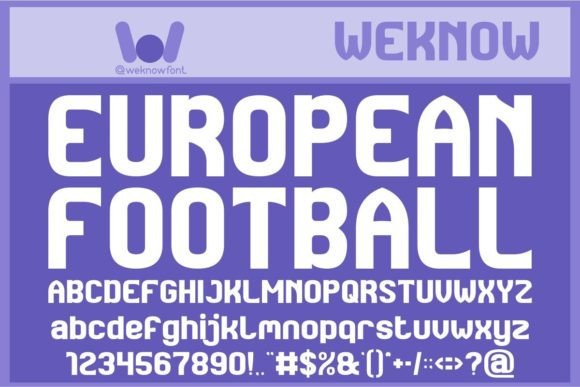
European Football Font: The Ultimate Choice for Bold and Sporty Designs
The world of typography is vast and diverse, offering a multitude of font styles to suit various design needs. Among these, the European Football font stands out for its sleek, sporty aesthetic and bold confidence. This smooth sans serif typeface is perfect for projects that require an intense, passionate vibe, making it an ideal choice for a wide range of applications.
The Versatility of European Football Font
One of the key advantages of the European Football font is its versatility. Its clean and modern design makes it suitable for various industries and creative endeavors. Whether you’re working on a branding project, designing apparel, or creating engaging content for digital platforms, this font is sure to make a lasting impression.
Key Features of European Football Font
- Smooth Sans Serif Design: The European Football font boasts a sleek and smooth sans serif design, giving it a modern and sporty feel.
- Bold Confidence: This font exudes bold confidence, making it perfect for projects that require an intense, passionate vibe.
- Versatile Aesthetic: Its versatile aesthetic makes it suitable for a wide range of applications, from branding and advertising to apparel and digital content.
- Clear Readability: The European Football font offers clear readability, making it ideal for use in magazines, books, comics, and other printed materials.
Applications of European Football Font
The European Football font is an exceptional choice for brands seeking to create a strong, formal, and distinctive corporate identity. Its unique form perfectly complements creative endeavors in various industries, including:
Industries That Can Benefit from European Football Font
- Apparel Brands: Add a touch of bold chicness to your apparel designs with this font, making it perfect for fashion brands and sportswear.
- Music, Movies, and Games: The European Football font can add a dynamic touch to creative projects in the entertainment industry, such as album covers, movie posters, and game titles.
- Magazines, Books, and Comics: Its clear readability makes it an excellent choice for printed materials, such as magazines, books, and comics.
- Digital Platforms: Use the European Football font to add a sense of dynamism to your digital content, including YouTube videos, Instagram posts, and website headers.
Crafting Engaging Headlines and Logos
The European Football font is tailor-made for crafting engaging headlines and logos that capture the viewer’s attention. Its bold and sporty design makes it perfect for:
Designing with European Football Font
- Headlines: Create attention-grabbing headlines that convey intensity and passion with the European Football font.
- Logos: Design distinctive and memorable logos that reflect your brand’s personality and values.
Embark on Your Creative Journey
The European Football font is an excellent choice for designers and brands looking to create bold and sporty designs. Its versatility, clear readability, and dynamic aesthetic make it perfect for a wide range of applications. So, embark on your creative journey with the European Football font and let your designs speak volumes.
In conclusion, the European Football font is a powerful tool for designers and brands seeking to create bold and sporty designs. Its sleek and modern aesthetic, combined with its versatility and clear readability, make it an ideal choice for various industries and creative endeavors. Whether you’re working on a branding project, designing apparel, or creating engaging content for digital platforms, the European Football font is sure to make a lasting impression.